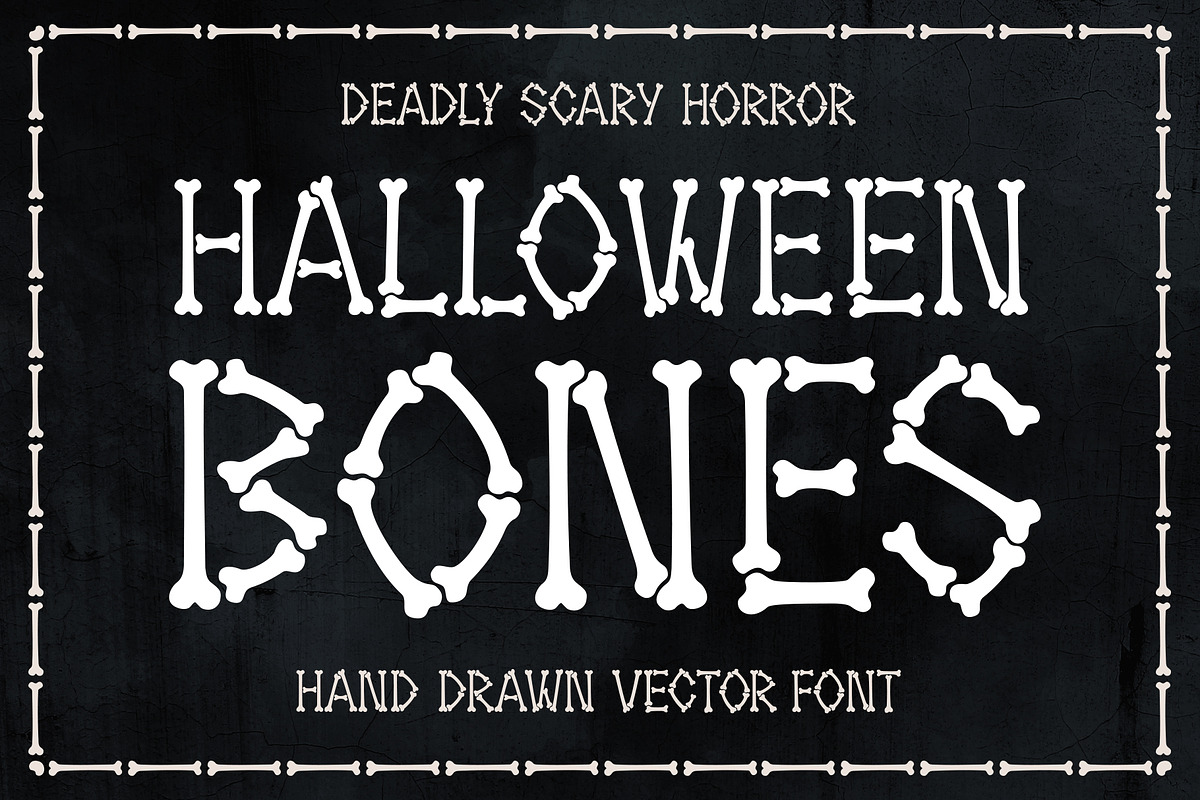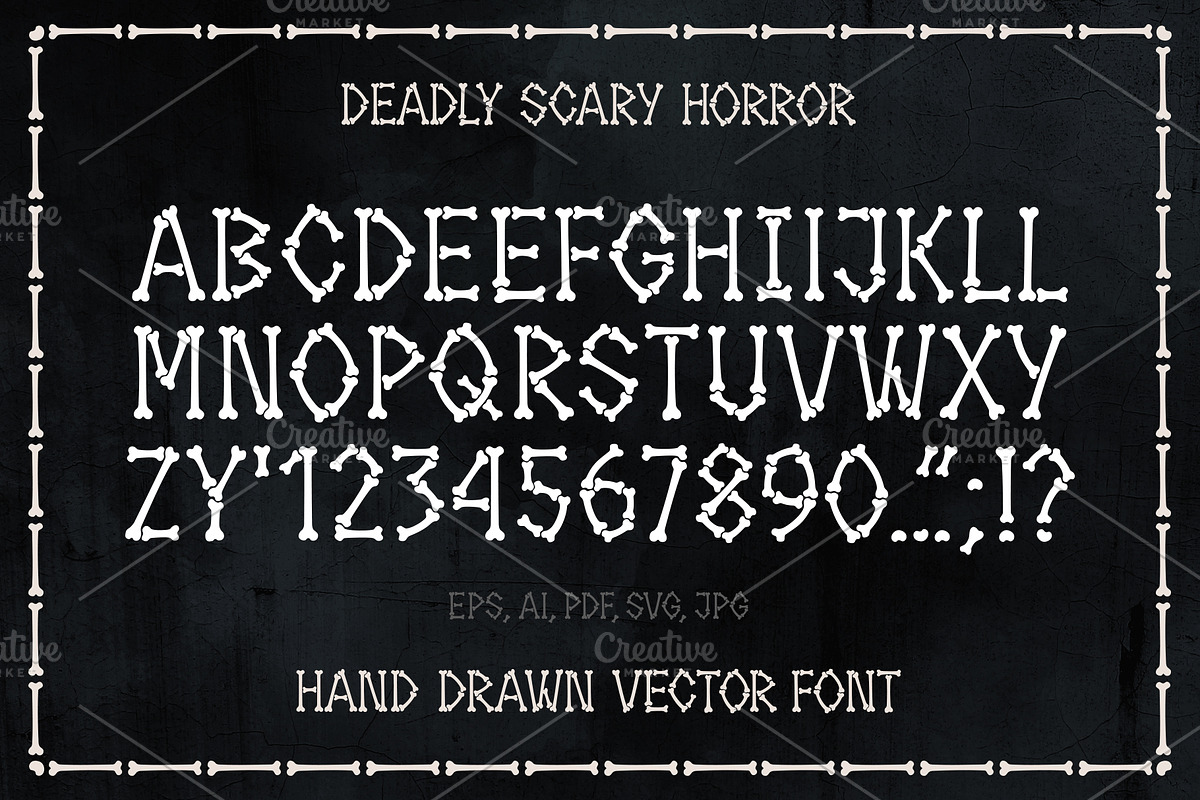
Halloween Bones vector font
Bones font for Halloween or horror movie logo design. Hand drawn typeface, stencil capital english letters, numbers and symbols. Made of bones and joints on a black background. Vector illustration. Good for posters, banners, invitation cards, t-shirt design etc.